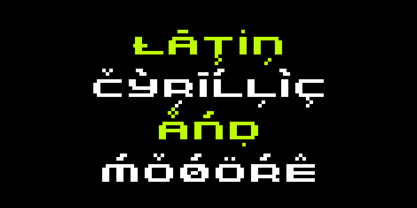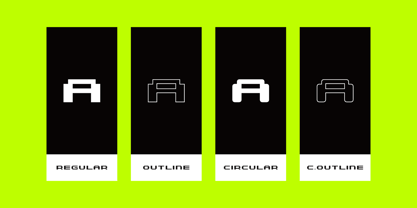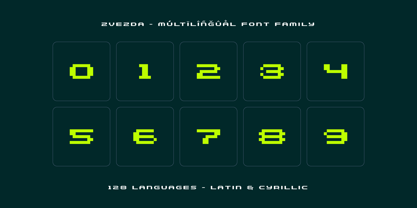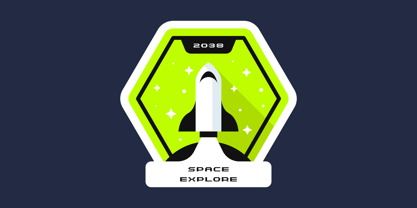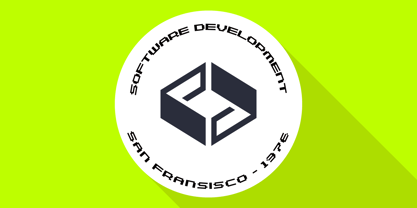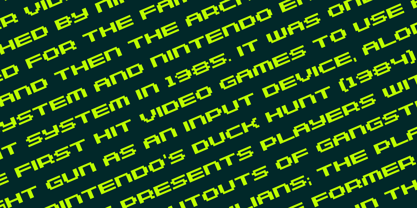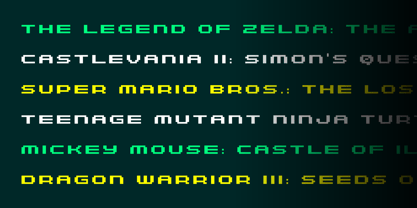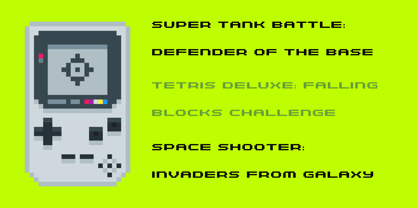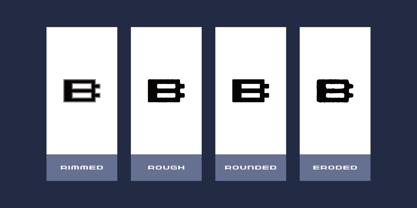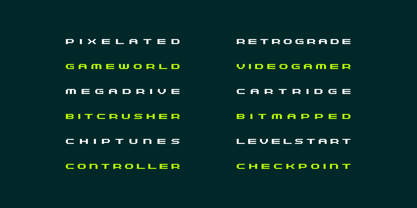
Zvezda
by AlperCakici
Zvezda is a bold and expressive pixel typeface that merges retro digital aesthetics with contemporary versatility. Designed with a wide structure, it delivers strong visual impact while maintaining excellent readability across a broad range of applications. Built as an extensive superfamily, Zvezda offers a rich variety of styles, from sharp Angular cuts to smooth Circular and Rounded forms. Each style explores different moods—ranging from geometric precision to hand-crafted warmth—making it adaptable for both futuristic and playful designs. The family includes multiple expressive finishes such as Brush, Pencil, Outline, Inline, Rimmed, Rough, Eroded, and Noise. These variations allow designers to experiment with texture and depth, whether creating clean digital interfaces or distressed, organic compositions. With a comprehensive set of upright and italic styles, Zvezda provides flexibility for dynamic typography systems. Its wide proportions make it especially suitable for headlines, branding, posters, games, UI design, and digital environments where character and clarity are essential. Supporting an extensive range of Latin-based languages, Zvezda is a global-ready typeface crafted for modern communication. Zvezda is where pixel precision meets creative freedom.
Designers: Alper Çakıcı
Foundry: AlperCakici